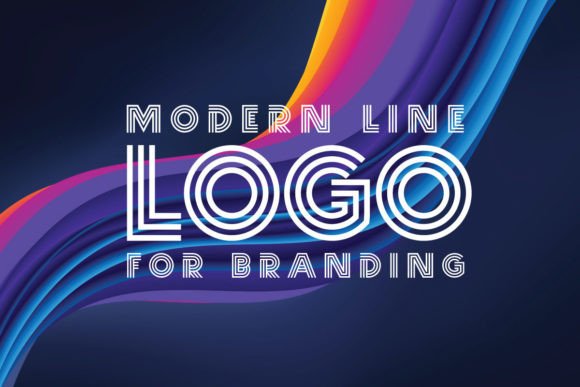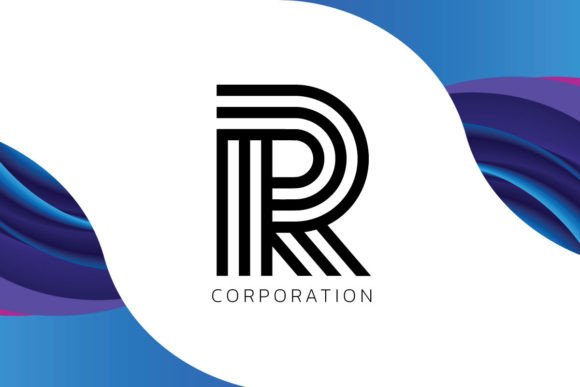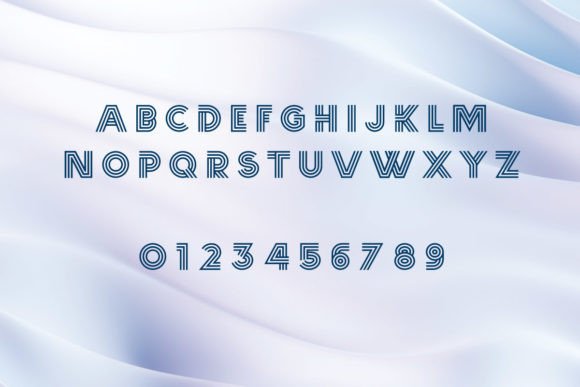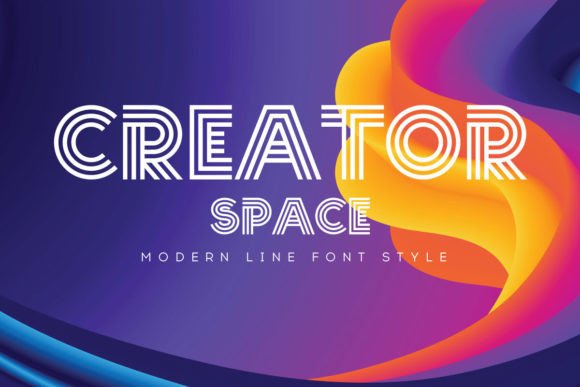
Introducing Creator Space: The Ultimate Font for Modern Designers
In the world of design, typography plays a crucial role in conveying a message, expressing creativity, and setting the tone for a brand. With the ever-evolving landscape of design trends, it’s essential to stay ahead of the curve with fonts that exude sophistication, elegance, and modernity. This is where Creator Space comes in – a sleek and modern line display font that’s taking the design world by storm.
The Essence of Creator Space
Creator Space is a masterpiece of typography, crafted with precision and attention to detail. Its clean, sharp lines and contemporary styling make it the perfect choice for designers who strive for perfection. This font is not just a collection of letters; it’s an experience that elevates your design to new heights. Whether you’re working on a branding project, a website, or a marketing campaign, Creator Space is the ultimate tool to add a touch of sophistication and elegance.
Key Features of Creator Space
- Clean and Sharp Lines: Creator Space boasts clean, sharp lines that give it a modern and sleek appearance, making it perfect for designs that require a touch of sophistication.
- Contemporary Styling: This font is designed with contemporary styling in mind, ensuring that your designs look fresh, modern, and cutting-edge.
- High Versatility: Creator Space is a line display font that’s versatile enough to be used in various design projects, from branding and advertising to web design and more.
- Ease of Readability: Despite its sleek and modern design, Creator Space remains highly readable, making it perfect for headlines, titles, and short paragraphs.
Why Choose Creator Space?
With so many fonts available in the market, why should you choose Creator Space? The answer lies in its unique blend of style, sophistication, and versatility. Here are a few reasons why Creator Space stands out from the rest:
- Unique Design: Creator Space has a distinct design that sets it apart from other fonts. Its clean lines and modern styling make it a standout choice for designers.
- Ease of Use: This font is incredibly easy to use, even for those who are new to design. Its simplicity and readability make it accessible to a wide range of users.
How to Use Creator Space in Your Designs
Using Creator Space in your designs is incredibly straightforward. Here are a few tips to get you started:
- Pair it with Other Fonts: Creator Space works beautifully with other fonts, especially those with a more traditional or serif design. Experiment with different pairings to find the perfect combination for your project.
- Experiment with Colors: This font looks stunning in a variety of colors, from bold and bright to subtle and muted. Don’t be afraid to experiment with different color schemes to find the one that works best for your design.
- Play with Sizes: Creator Space is designed to work well in various sizes, from large headlines to smaller body text. Experiment with different sizes to add visual interest to your design.
In conclusion, Creator Space is a game-changing font that’s perfect for designers who strive for sophistication, elegance, and modernity. With its clean lines, contemporary styling, and high versatility, this font is sure to elevate your designs to new heights. Whether you’re working on a branding project, a website, or a marketing campaign, Creator Space is the ultimate tool to add a touch of elegance and sophistication. So why wait? Let your creativity shine with Creator Space and create designs that are truly cutting-edge.